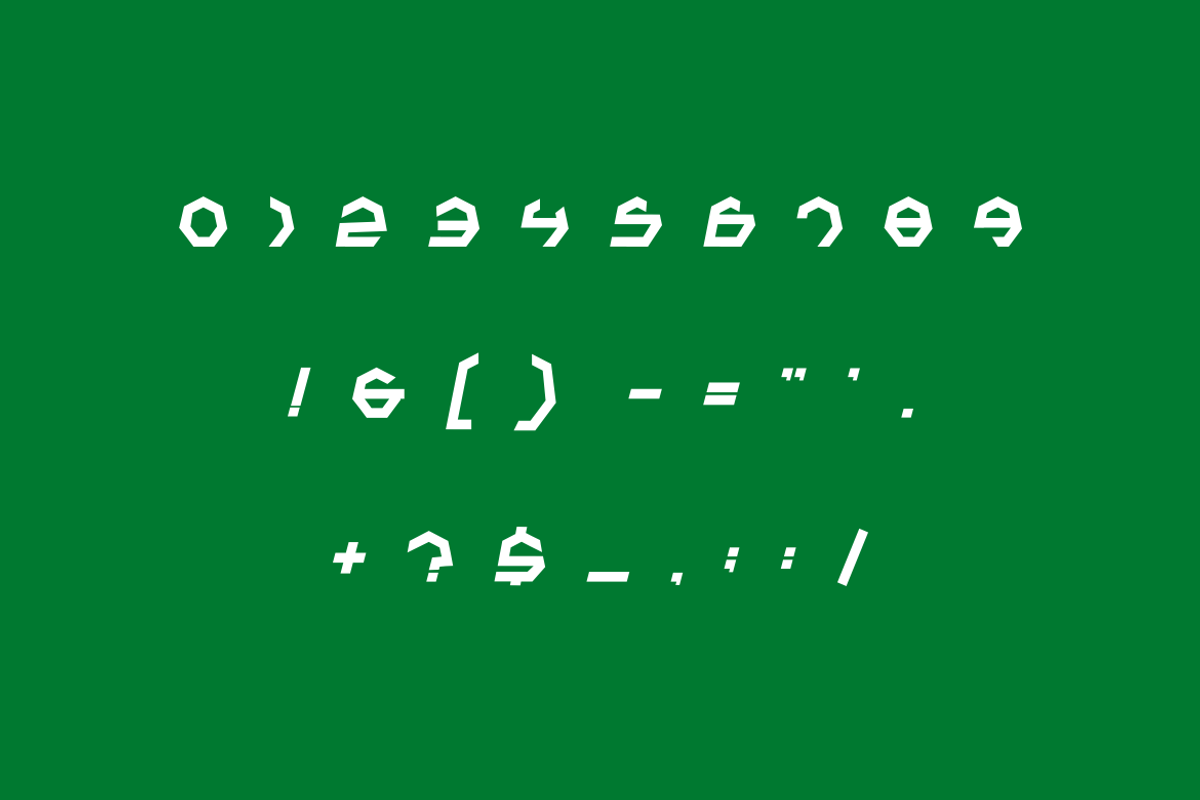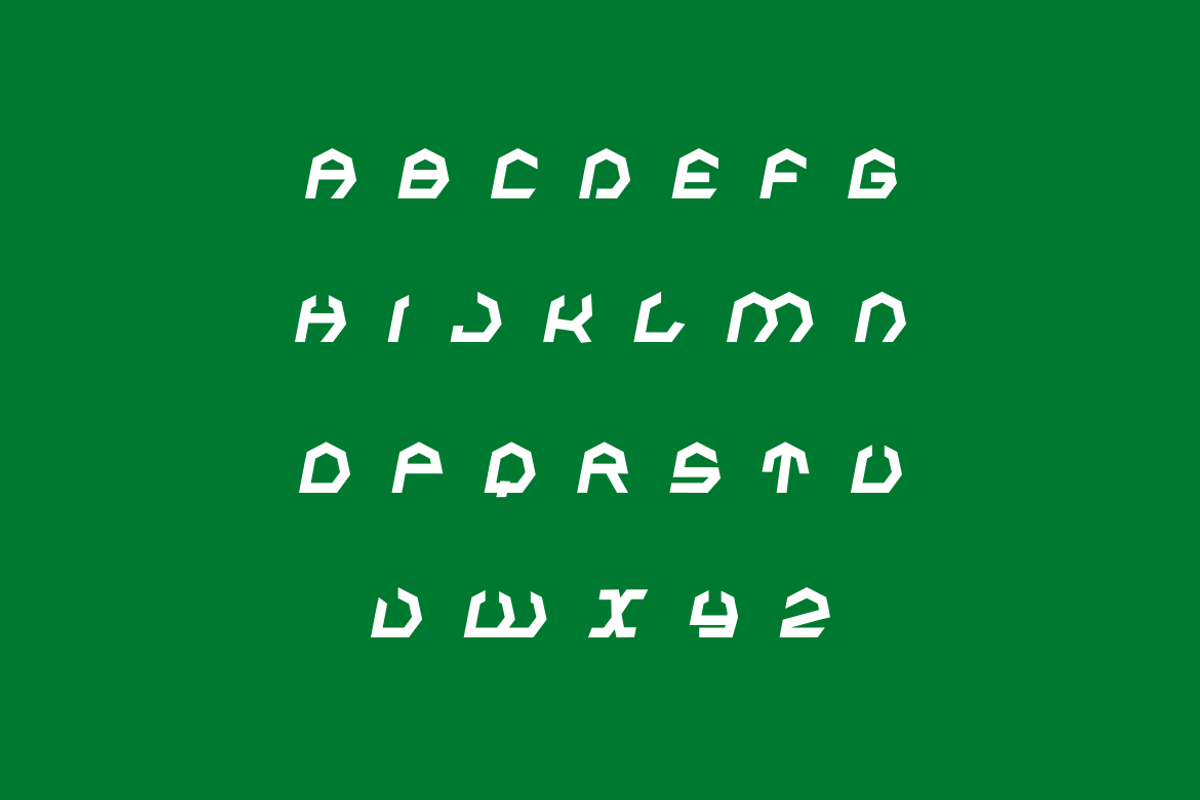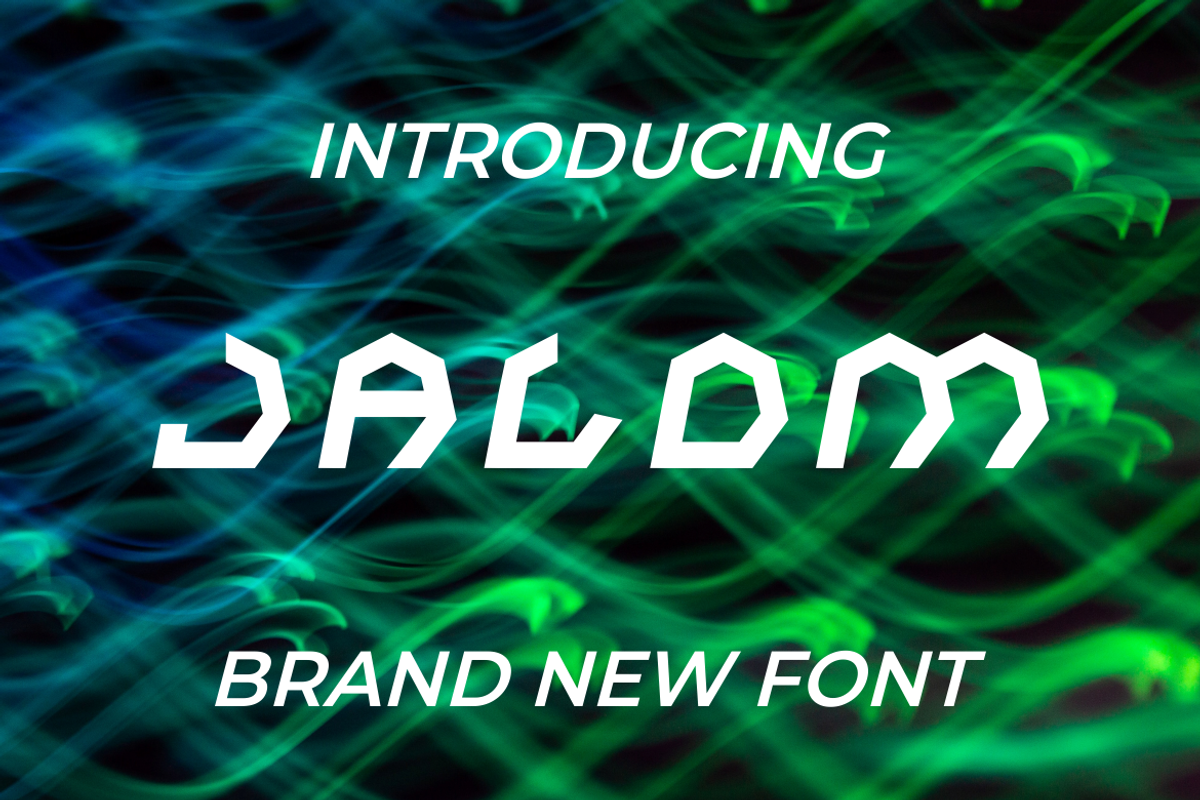
JALOM FONT
Introducing our new product JALOM FONT - Modern Font
JALOM FONT - Modern Font is a bold and authentic display font. The font is suitable for any branding project like logo, t-shirt printing, esport, and many more. outstanding in a wide range of contexts.